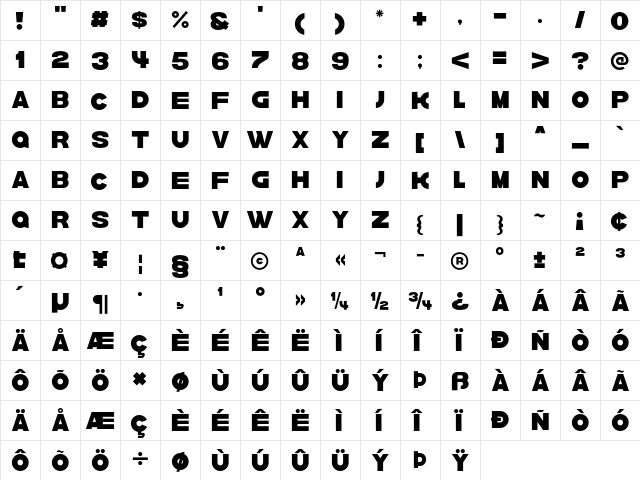
krown Bold
Design Context for krown Typeface
krown takes a measured approach to typography — its balanced proportions and neutral character make it a reliable workhorse for both digital and print work. Its bold stroke weight gives it real presence on the page.